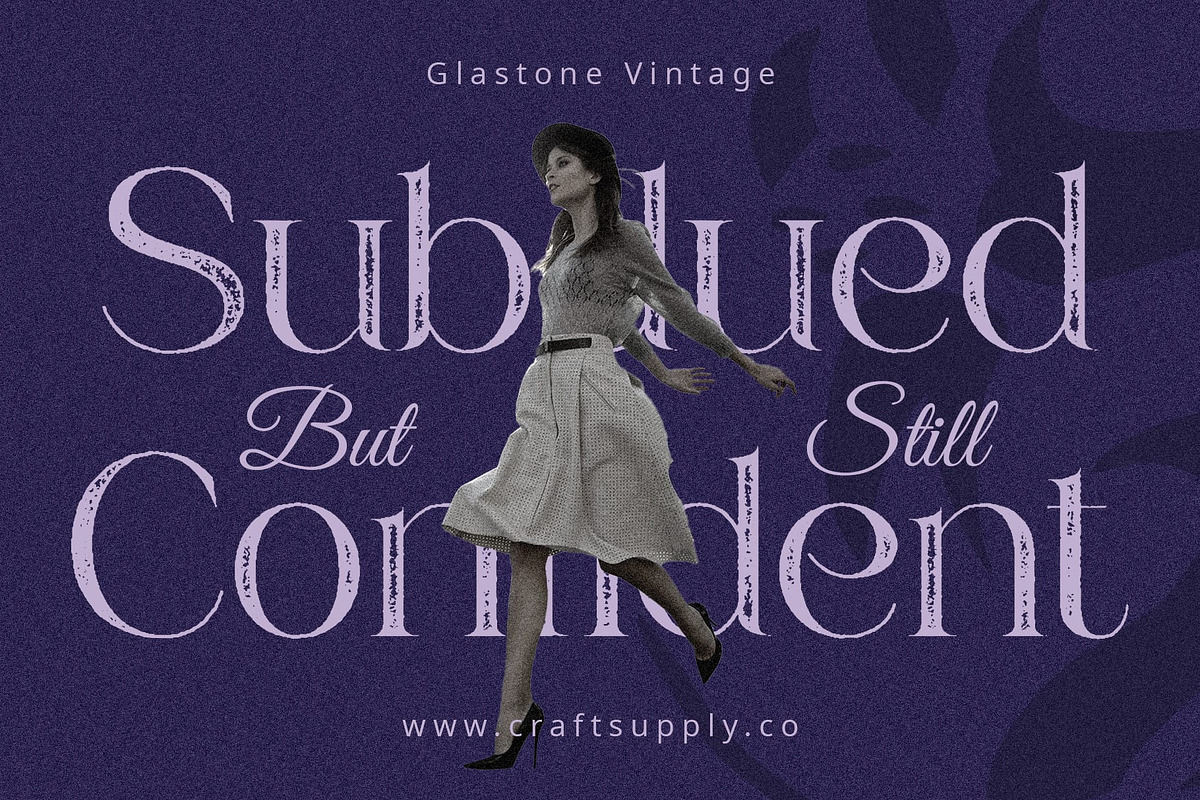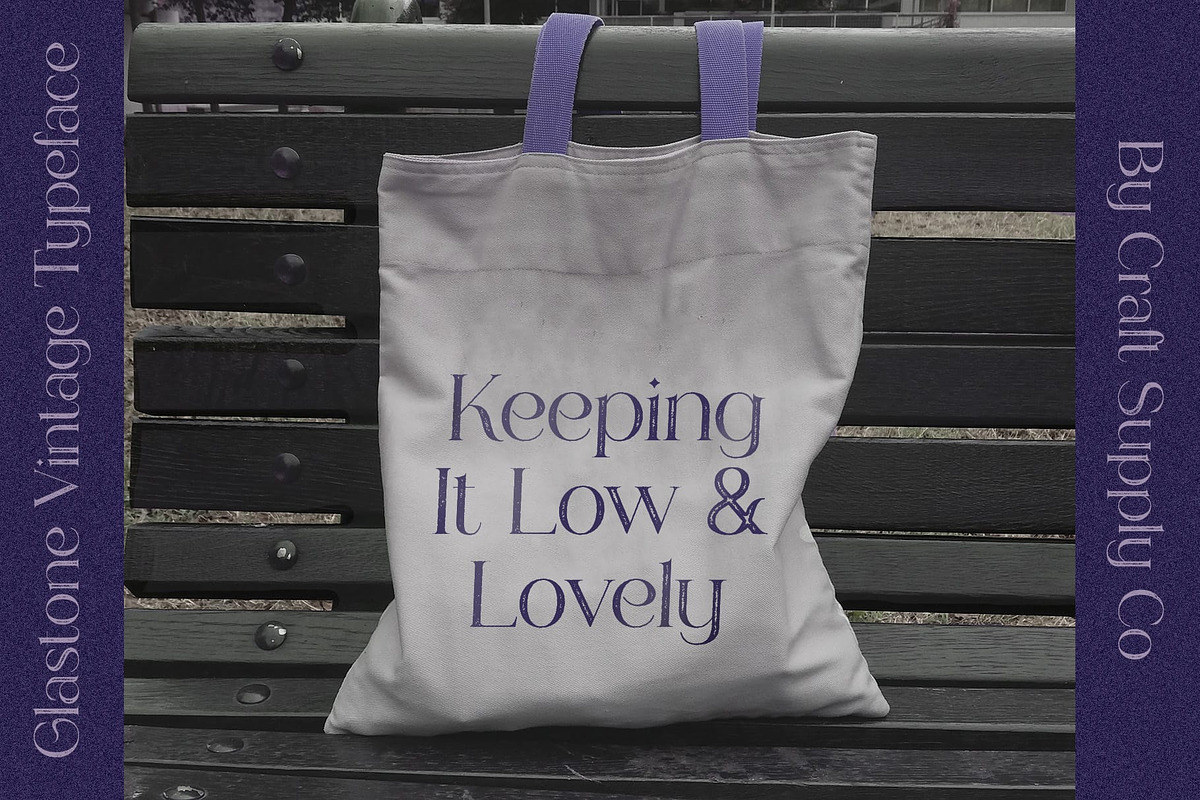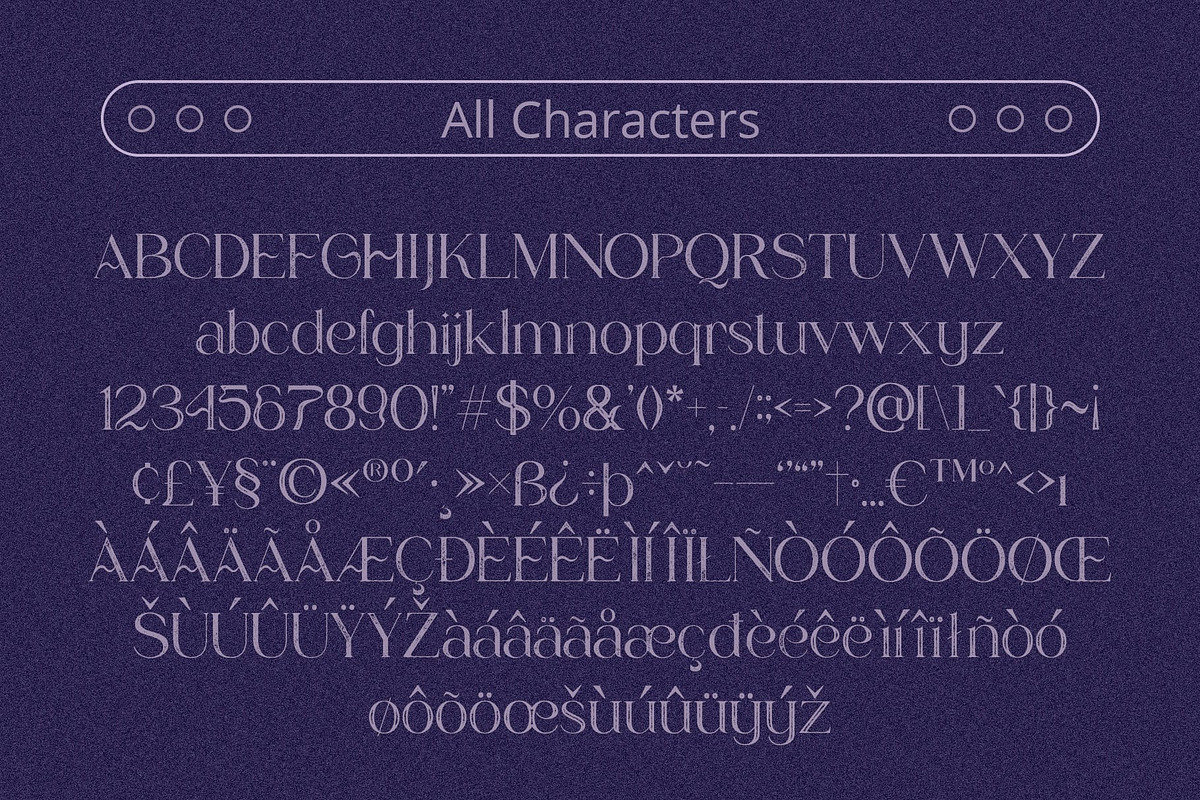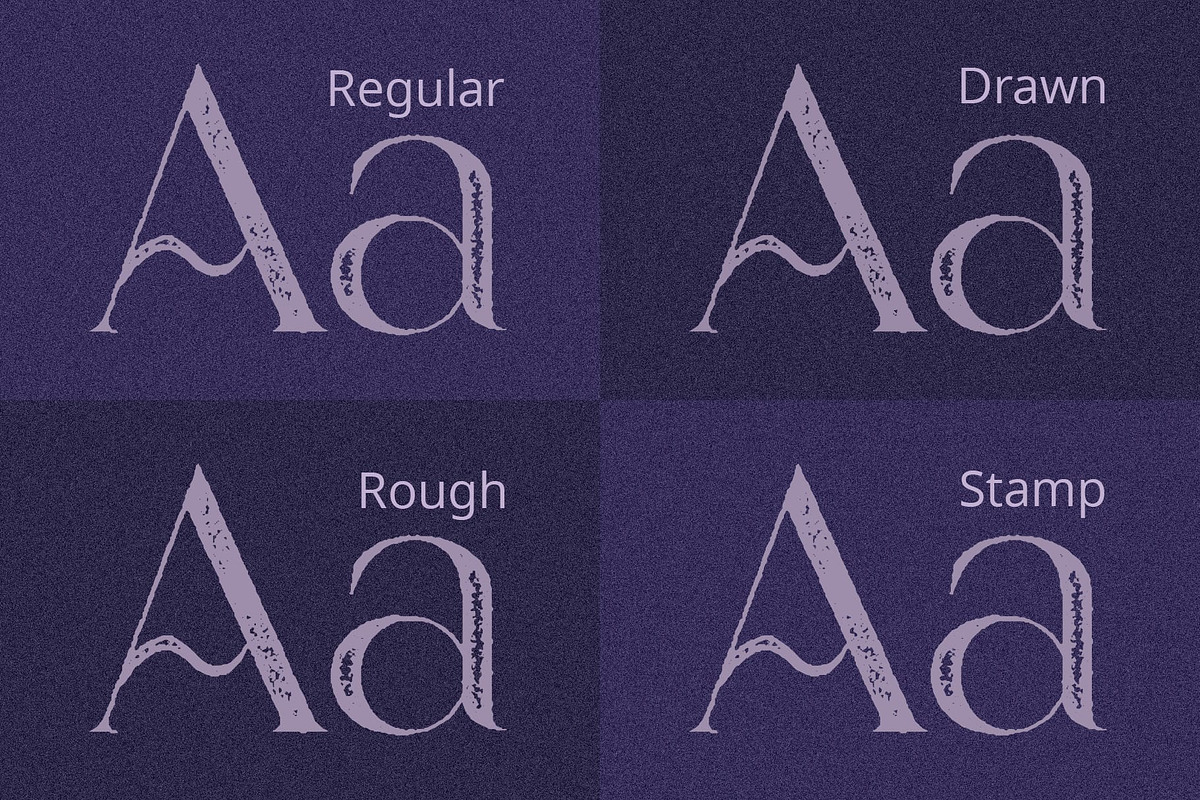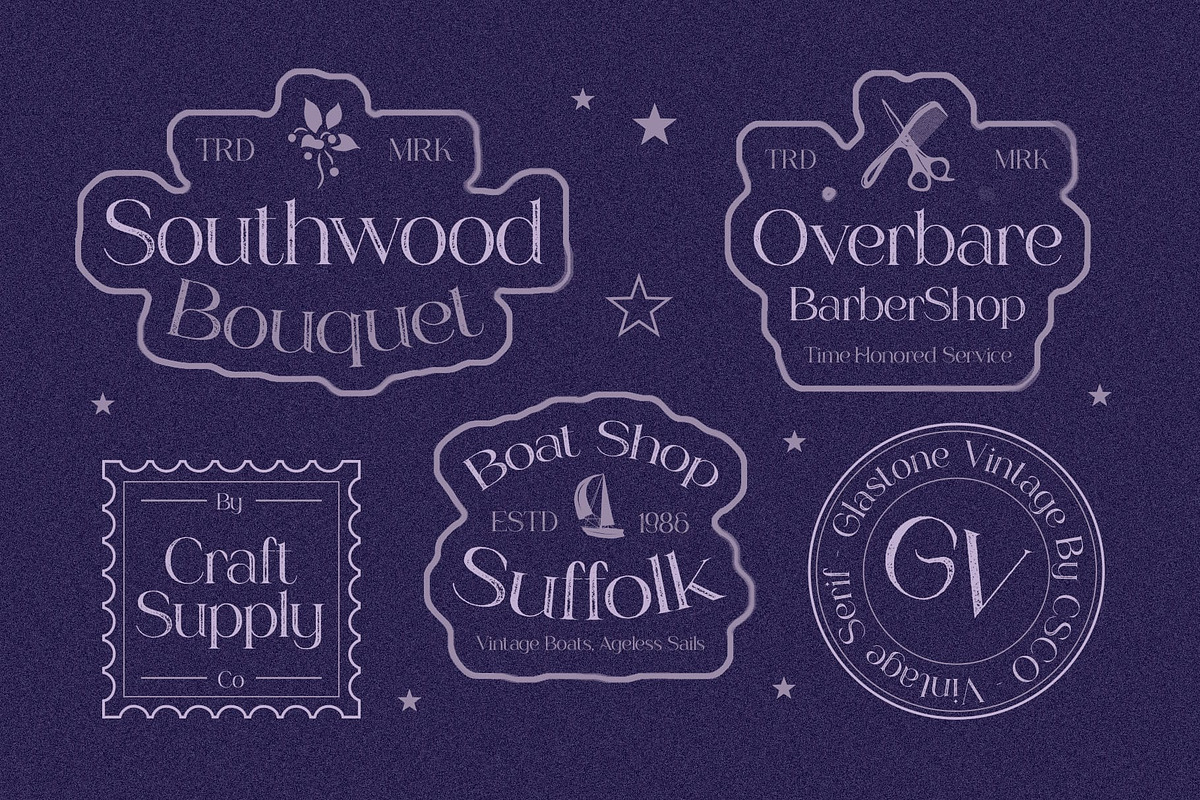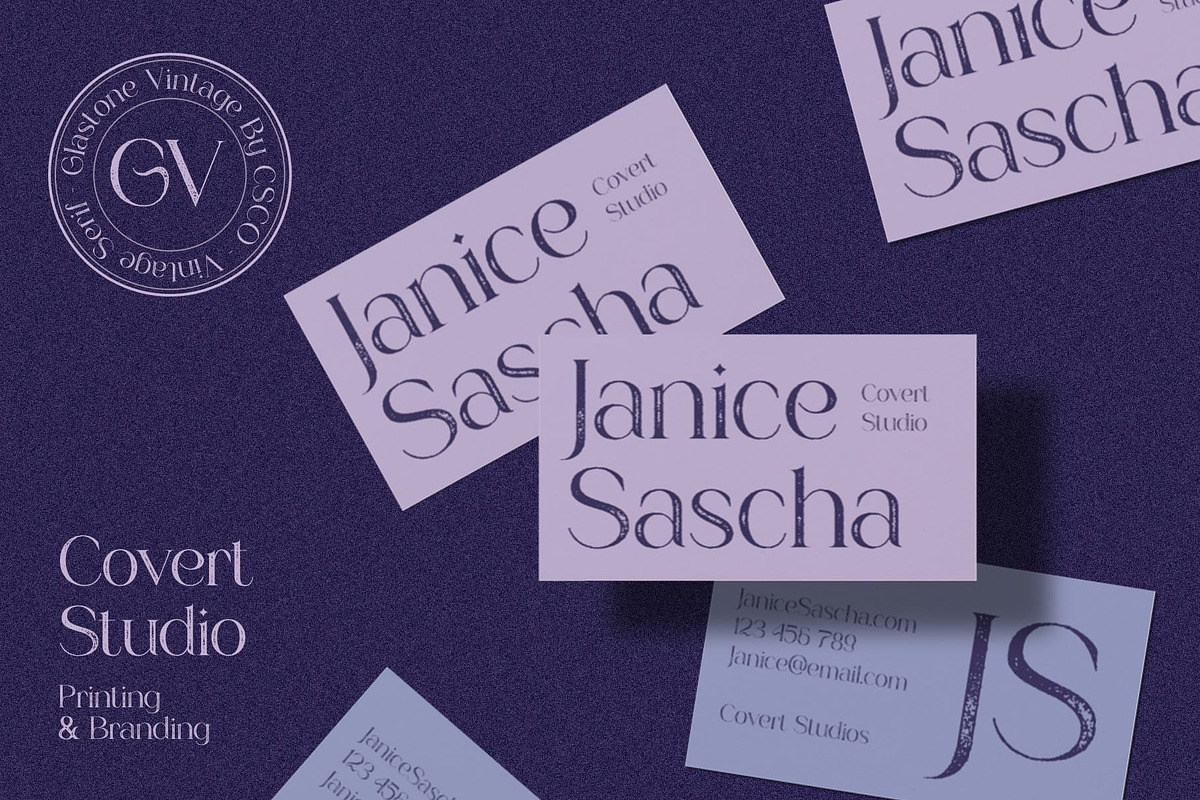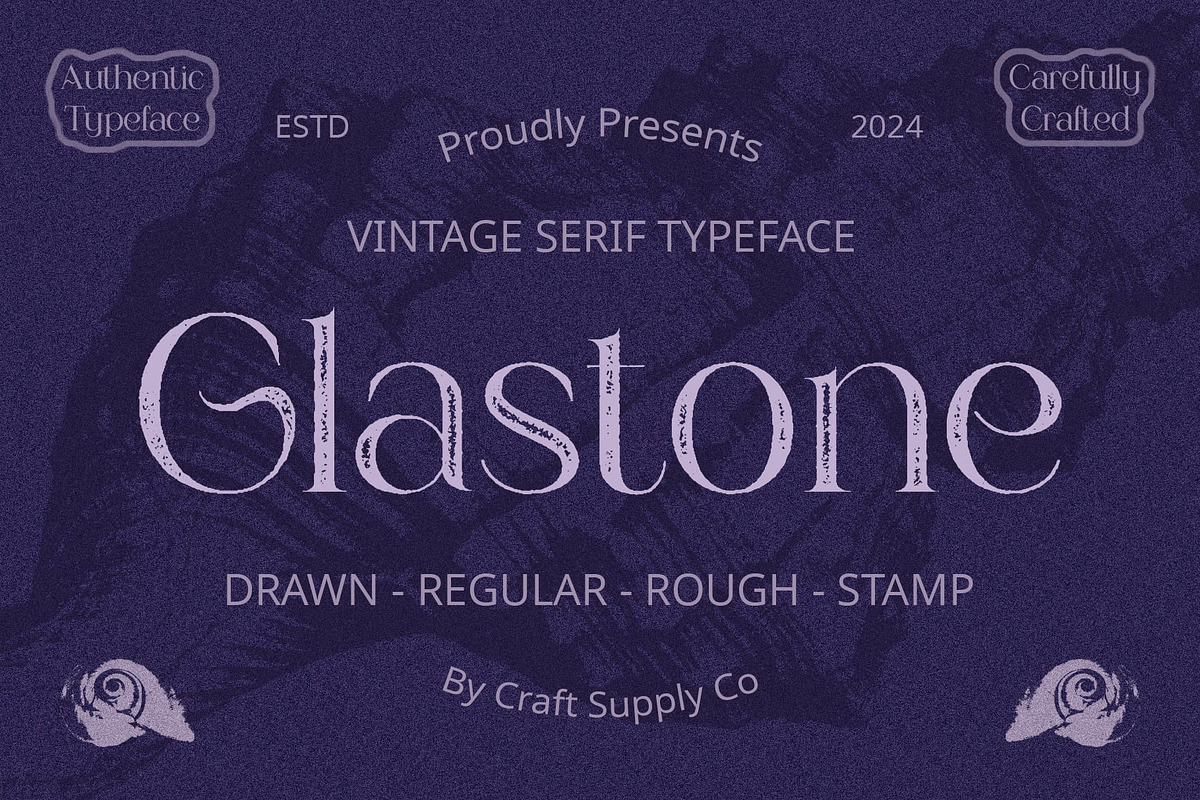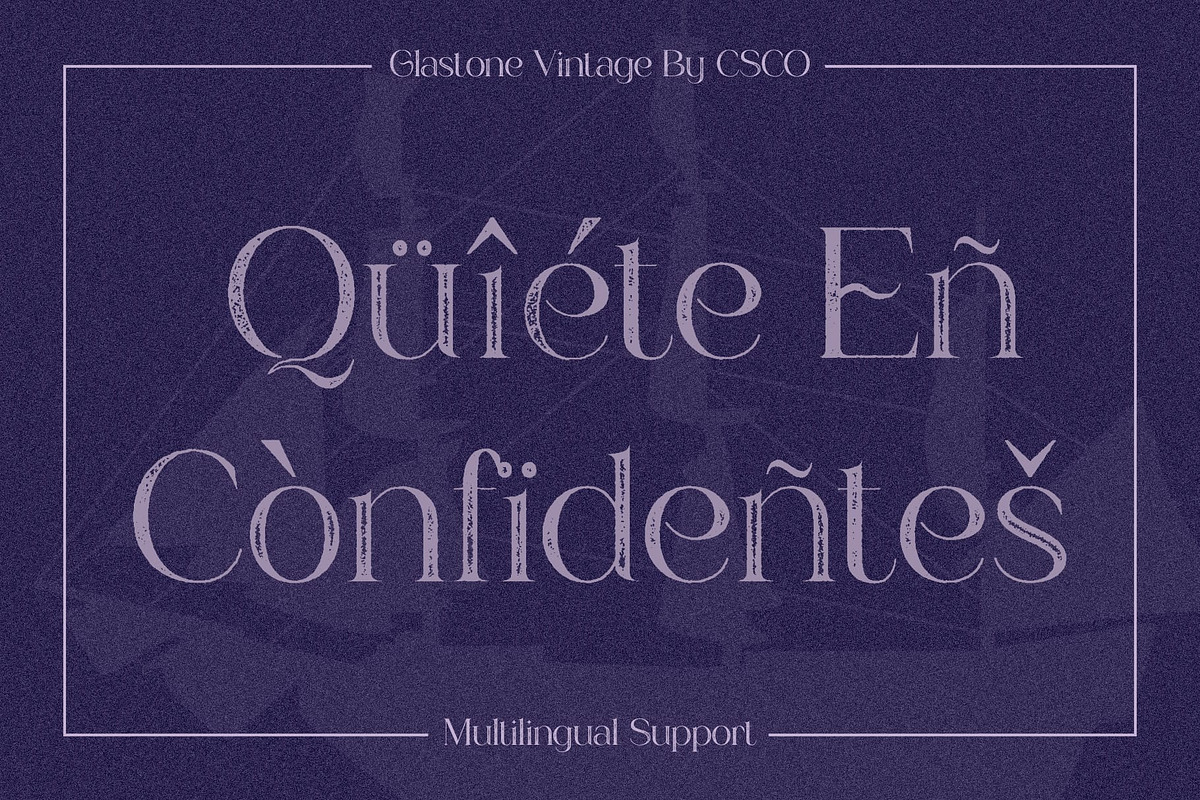
Glastone Vintage
Glastone Vintage: Aesthetic Serif Display Font
Serif Elegance with Aesthetic Flow Glastone Vintage presents a stunning serif display font with an aesthetic flow, enhancing select glyphs for a captivating visual experience.
Perfect for Display Needs Tailored for display purposes, This font excels in various contexts, from branding to editorial design. Its unique aesthetic appeals to a wide range of design projects.
Vintage Stamp Rough Effects Infused with vintage charm, This font features rough stamp effects that evoke a sense of nostalgia and authenticity, adding character to any design.
Versatile Application With its blend of serif sophistication and vintage appeal, This font offers versatility in application. Whether for posters, packaging, or digital media, it adds a touch of elegance and flair.
Timeless Charm with Modern Aesthetics This font emerges as a versatile serif display font, combining timeless charm with modern aesthetics. Its aesthetic flow and vintage stamp rough effects make it an ideal choice for a wide range of design projects, ensuring a captivating visual impact.
- Glastone Regular
- Glastone Drawn
- Glastone Rough
- Glastone Stamp